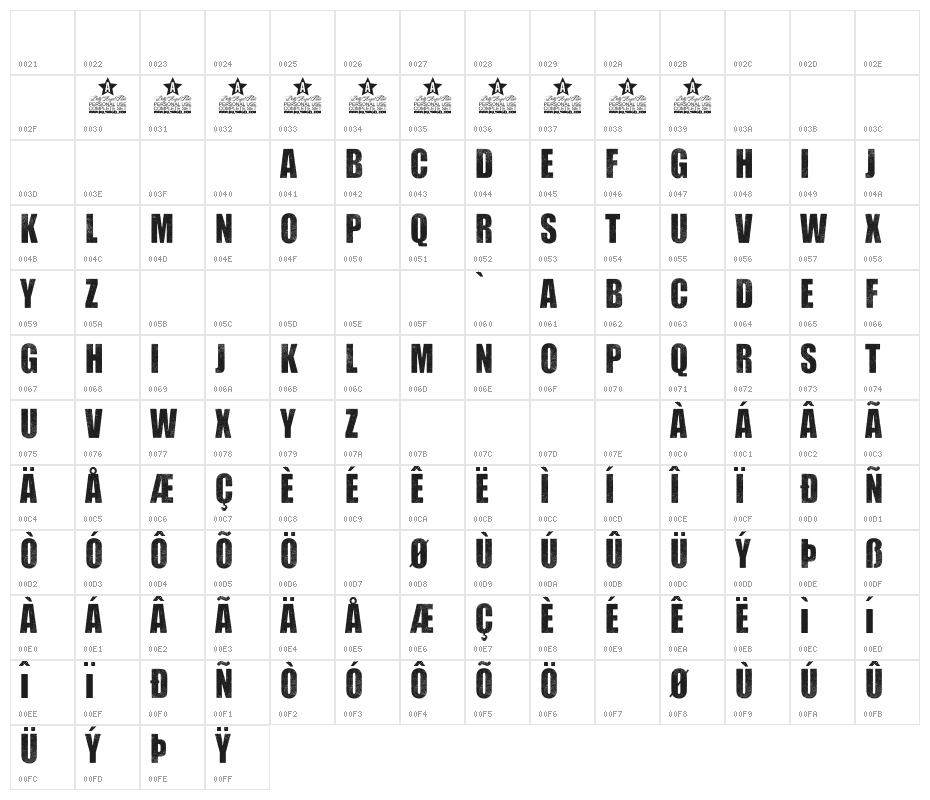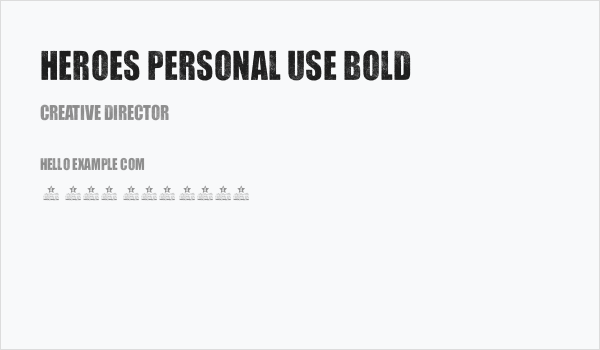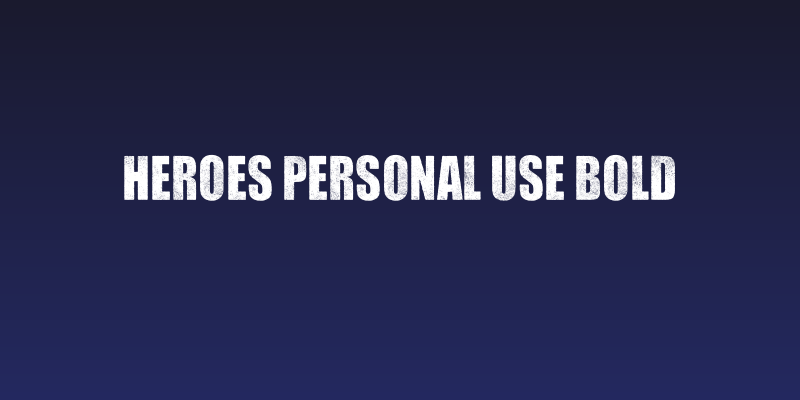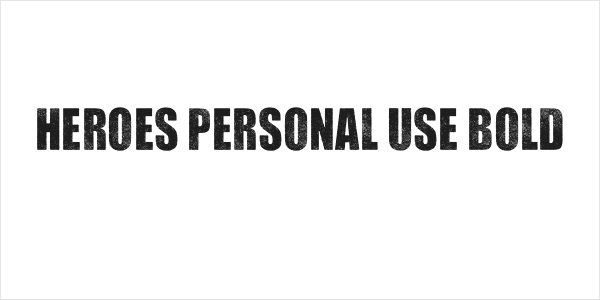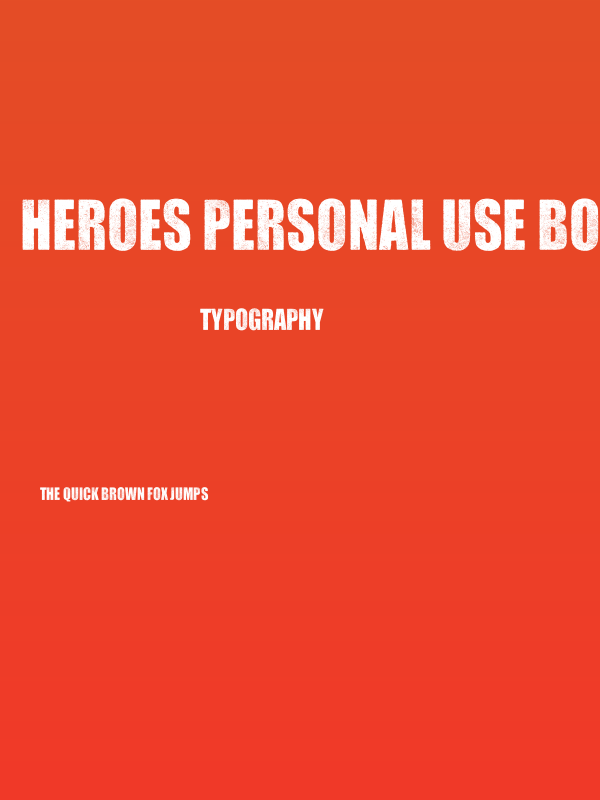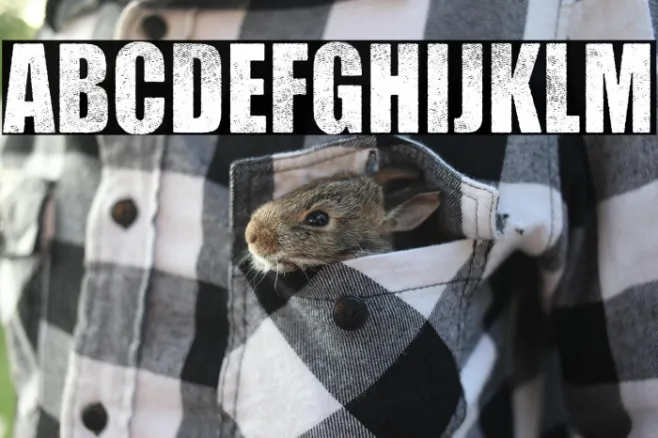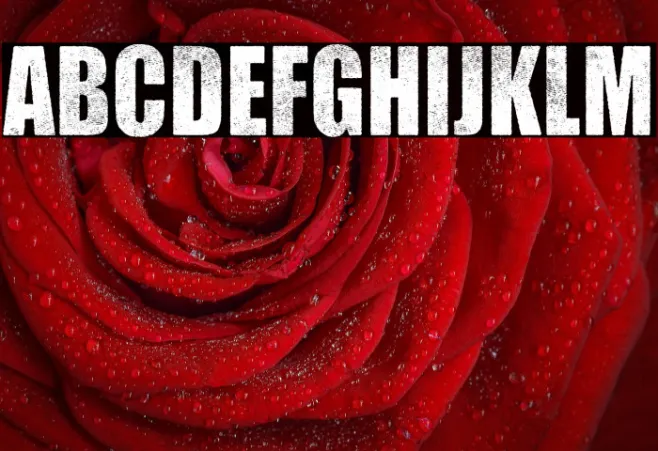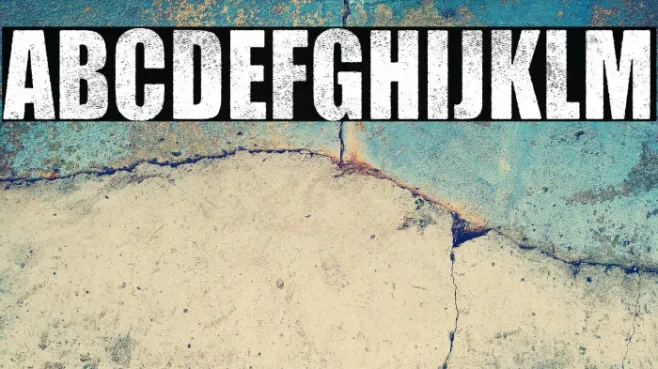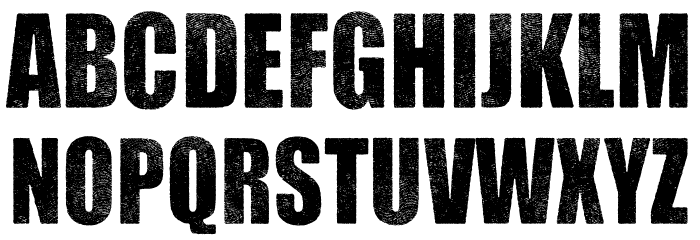
HEROES PERSONAL USE Bold Font
HEROES PERSONAL USE Bold Description
This bold, uppercase-only font features a distressed, textured appearance that gives it a rugged and vintage feel. The letters are uniformly bold with a consistent width, creating a strong and impactful presence. The texture adds a layer of depth and character, making it ideal for designs that require a gritty or industrial aesthetic. The font's boldness ensures it stands out, making it suitable for attention-grabbing headlines or titles. Its lack of lowercase letters and special characters limits its use to specific design contexts where uppercase text is preferred.
| Overall Style | Vintage |
| Proposed Projects | Ideal for posters, logos, and branding projects that require a strong, vintage look. |